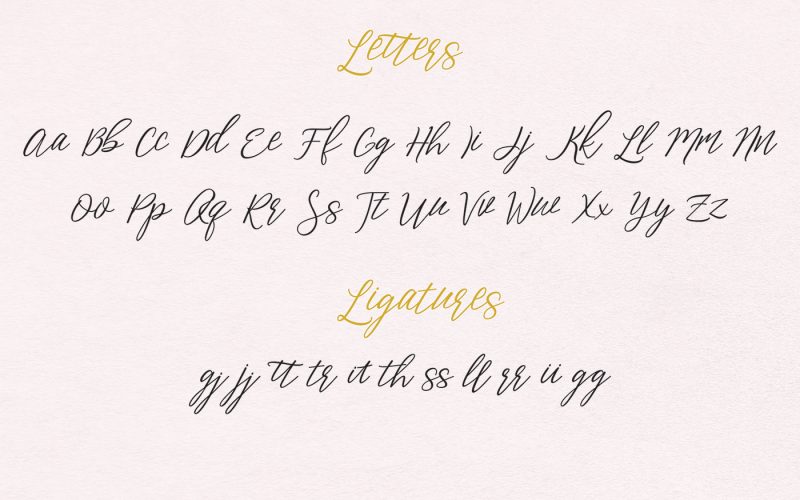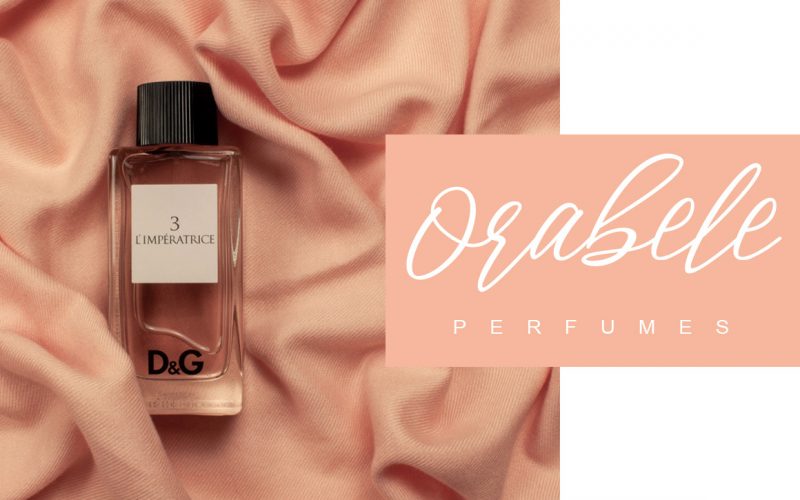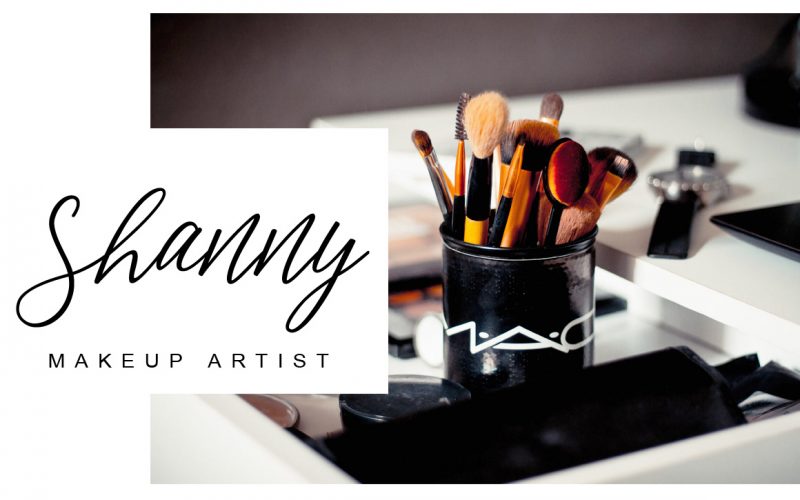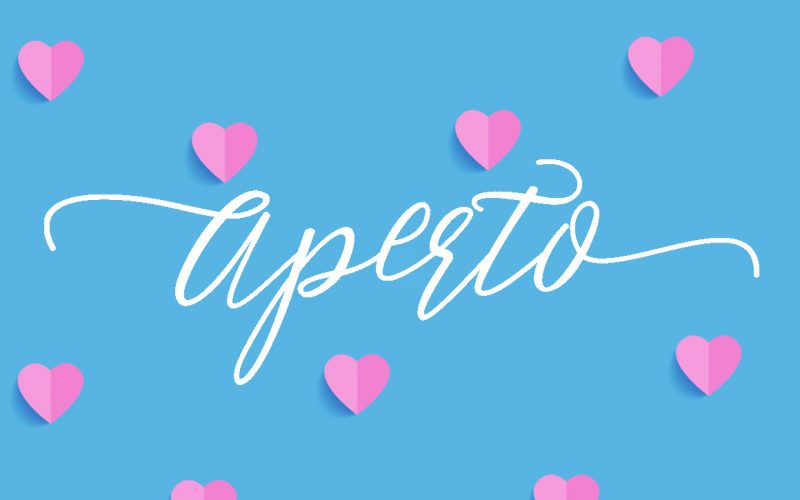
Aperto Script Font
Aperto Script Free Font
Aperto Font – a new fresh handmade signature font. Perfect for adding a elegant and unique touch to your lettering projects and branding. Aperto Script Font designed and shared by Fontysia Studio. This handwritten script has been attentively written, with gentle curves to produce a font thats completely distinctive and original. This font is suitable to use as a logo & branding, photography, watermark, social media posts, advertisements, invitation, product designs, label, stationery, wedding designs, product packaging or anything that need handwriting taste.